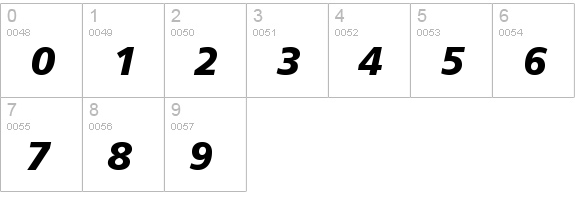
SALFrutiger-XBoldItal Font Details
Introducing SALFrutiger-XBoldItal, a bold and italic font that exudes elegance and modernity. This versatile typeface is perfect for adding a touch of sophistication to any design project, whether it be logos, headlines, or body text. With its clean and crisp lines, SALFrutiger-XBoldItal commands attention and makes a bold statement. The sleek and slanted letterforms lend a sense of dynamism and movement to your designs, creating a visually captivating experience for the reader. What sets SALFrutiger-XBoldItal apart is not only its striking aesthetics, but also its availability. This font is freely available to download at FontsMarket.com, making it accessible to designers and creatives alike. Say goodbye to restricted access and limited options, and embrace the freedom to elevate your designs with this exceptional font. Whether you are looking to create a professional corporate identity, design eye-catching advertisements, or craft captivating editorial layouts, SALFrutiger-XBoldItal is the perfect choice. Its balanced proportions and refined curves add a touch of sophistication to any project, ensuring that your message is conveyed with the utmost clarity and impact. Download SALFrutiger-XBoldItal for free at FontsMarket.com and unlock a world of design possibilities. With this font, you have the freedom to create stunning visuals that leave a lasting impression. Elevate your designs and captivate your audience with the timeless elegance of SALFrutiger-XBoldItal.